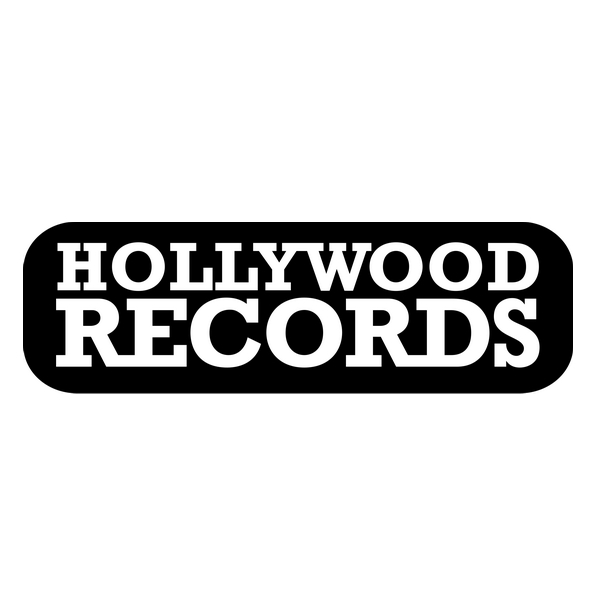
Hollywood Records Font
EntertainmentHollywood Records is an American record label under the Disney Music Group. It was founded in 1989 and has since signed several popular artists including Demi Lovato, Sofia Carson, and Queen.
The Hollywood Records logo uses Rockwell Bold as its font. This font is a geometric slab serif that is specifically designed for use in headlines and posters.